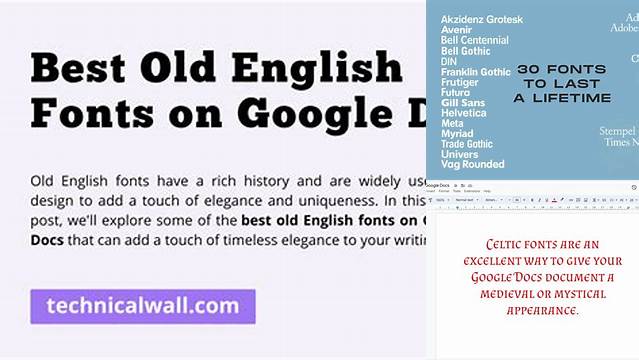
Ancient Fonts For Google Docs: A Timeless Look
Exploring the Allure of Ancient Looking Fonts on Google Docs
Hey everyone! Ever wanted to give your Google Docs a touch of history, a dash of old-world charm, or maybe just something that screams “timeless”? Well, you’ve come to the right place, guys. We're diving deep into the fascinating world of ancient looking fonts on Google Docs. It’s not just about picking any old font; it’s about finding that perfect typeface that transports your readers, whether you're crafting a historical essay, a creative story, or even just a fancy invitation. Google Docs, believe it or not, has a surprisingly robust library of fonts, and with a little digging, you can unearth some real gems that evoke the feel of ancient manuscripts, weathered scrolls, or even regal proclamations from centuries past. Think about the power of typography – it’s the first visual impression your words make. A modern sans-serif might be sleek and efficient, but an ancient font? That’s got story. It whispers tales of parchment, ink quills, and a different era. So, let’s get this exploration started and find some fonts that will make your documents look like they’ve journeyed through time itself. We’ll cover how to find them, some popular choices, and how to best utilize them to create that distinct, historical vibe you’re going for. It’s all about adding that extra layer of personality and impact to your written work, making it not just readable, but memorable. Get ready to elevate your Google Docs game with some seriously cool, ancient vibes!
Top Picks for Ancient Looking Fonts on Google Docs
Alright guys, now that we know how to find them, let's talk about some of the actual ancient looking fonts on Google Docs that really nail that historical vibe. While the Google Fonts library is vast, some typefaces just stand out when you're aiming for that old-world feel. One absolute classic is Playfair Display. Seriously, this font is gorgeous. It's a serif font with high contrast between thick and thin strokes, giving it a very elegant and somewhat dramatic, almost 18th-century feel. It’s perfect for titles, headings, or even short blocks of text where you want to make a statement. Another fantastic option is Merriweather. This one is designed for readability on screens, but it has a wonderfully sturdy and classic serif feel that evokes old books and libraries. It’s a bit more grounded than Playfair Display but still carries that historical weight. For something a little more rustic or perhaps medieval-inspired, check out Uncial Antiqua. This font is inspired by ancient Roman and early medieval scripts, featuring a distinct, almost hand-drawn look. It’s not ideal for long paragraphs due to its unique style, but for titles, headers, or specific design elements, it’s absolutely killer. Then there’s Lora. Lora is another serif font that balances contemporary and classic elements. It has a gentle flow and is highly readable, making it versatile for both body text and headings, and it definitely hints at older, more refined writing styles. Don’t forget about EB Garamond. If you want something that truly feels like it came from a renaissance manuscript, this is your font. It’s based on the classic Garamond typeface, known for its timeless beauty and readability. It’s sophisticated, elegant, and screams historical accuracy. When choosing, remember to consider the context. A formal historical document might suit EB Garamond, while a creative story set in a medieval fantasy world might call for Uncial Antiqua. Playfair Display is great for a more refined, literary feel. Experiment with these, play around with sizes and spacing, and see which ones resonate most with the specific historical period or mood you’re trying to capture. These are just a few to get you started on your quest for the perfect ancient looking fonts on Google Docs!
Evoking Medieval Manuscripts with Uncial Antiqua
Let’s really zero in on a font that screams “medieval manuscript,” guys, and that’s Uncial Antiqua. If you’re on the hunt for ancient looking fonts on Google Docs that can transport your readers straight back to the scriptoriums of the early Middle Ages, this is a top contender. Uncial Antiqua is inspired by the uncial script used in Latin manuscripts from about the 4th to the 9th centuries. What makes it so special? Well, for starters, it’s characterized by its all-uppercase letters and its rounded, almost flowing forms. Unlike the later Carolingian minuscule script which introduced lowercase letters, uncial script was predominantly written in capital letters, but these weren't the sharp, angular capitals we see in Roman inscriptions. Instead, they were more open, rounded, and had a distinctly softer feel. This unique characteristic gives Uncial Antiqua an immediate visual distinction that sets it apart from modern fonts. When you use it in Google Docs, it instantly evokes a sense of history, of hand-copied texts, and of a time when books were precious, rare artifacts. It’s important to note that because of its all-caps nature and distinctive letterforms, Uncial Antiqua is best used for specific purposes rather than as body text for long documents. Think titles, chapter headings, decorative quotes, or even as a stylistic element in a historical fiction piece or a fantasy novel. Imagine using it for the opening title of a document about medieval history, or perhaps for the name of a character in a fantasy story that has an ancient lineage. It really grabs attention and sets a specific tone. Its slightly irregular appearance also hints at the hand-drawn nature of ancient calligraphy, adding to its authenticity. When pairing it with other fonts, consider using a simpler, readable serif or sans-serif font for the main body text to ensure legibility. This contrast will make your Uncial Antiqua elements pop even more. So, if you want to imbue your Google Docs with that authentic, hand-crafted, early medieval vibe, Uncial Antiqua is a fantastic choice to explore. It’s a powerful tool in your arsenal for creating ancient looking fonts on Google Docs that truly stand out and tell a story.
The Elegance of Playfair Display for Historical Documents
When we talk about ancient looking fonts on Google Docs, particularly those that convey sophistication and historical gravitas, Playfair Display is a name that has to come up. This font is an absolute winner if you’re aiming for a look that’s both elegant and reminiscent of older, more formal styles of writing. Playfair Display is a transitional serif typeface, meaning it bridges the gap between the older Old Style serif fonts and the modern slab serifs. Its defining characteristic is the high contrast between its thick and thin strokes. This dramatic difference in line weight gives it a very refined, almost calligraphic appearance, which is strongly associated with the kind of typography seen in the late 18th and early 19th centuries – think fine stationery, literary publications, and formal announcements of that era. Using Playfair Display in your Google Docs can instantly elevate the perceived quality and style of your document. It’s particularly effective for titles, headings, and even short, impactful quotes. Imagine using it for the title of a historical research paper, a formal invitation to a themed event, or even the byline on a piece of creative writing that aims for a literary feel. The sharp serifs and the delicate yet bold strokes give it a certain flair that’s hard to match. It’s not just about looking old; it’s about looking distinguished. While it’s beautiful, like many high-contrast serif fonts, it can sometimes be less readable in very small sizes or for extended blocks of body text, especially on digital screens. Therefore, it’s often best utilized for headings and subheadings, paired with a more legible, simpler font for the main body content. This contrast ensures that your document remains easy to read while still benefiting from the sophisticated aesthetic of Playfair Display. If you’re going for that elegant, almost aristocratic historical vibe, this font is a must-try. It’s one of those ancient looking fonts on Google Docs that truly makes a statement about the content and the intended audience, adding a layer of polish and timeless appeal.
Merriweather: A Readable Classic for Ancient Vibes
For those of you looking for ancient looking fonts on Google Docs that manage to blend historical resonance with excellent on-screen readability, Merriweather is a fantastic choice, guys. This font was specifically designed to be a highly readable serif typeface for computer screens, but it does so with a distinct nod to classic typography. What makes Merriweather feel “ancient” or classic? It has a comfortable weight and a generous x-height (the height of lowercase letters like 'x'), which contributes to its clarity. The serifs are sturdy and well-defined, giving it a solid, traditional feel without being overly ornate or fussy. It evokes the impression of old books, perhaps academic texts or well-established journals, where clarity and a sense of enduring quality are paramount. Merriweather isn't trying to mimic a specific historical script like Uncial Antiqua, nor does it have the high drama of Playfair Display. Instead, it offers a more universally appealing “classic” look that feels appropriate for a wide range of historical or traditional contexts. It’s incredibly versatile. You can confidently use Merriweather for your main body text in Google Docs, even for longer documents, and know that your readers will have a comfortable reading experience. It works equally well for headings and subheadings, providing a consistent and reliable classic aesthetic throughout your document. If you’re writing a historical biography, a research paper on a traditional subject, or even a personal journal entry where you want a touch of old-world charm, Merriweather is a solid go-to. It strikes a perfect balance between having character and maintaining legibility, which is often the trickiest part when searching for ancient looking fonts on Google Docs. It feels familiar and trustworthy, like a well-worn leather-bound book. Don’t underestimate the power of a font that is both beautiful and functional. Merriweather delivers on both fronts, making it a staple for anyone looking to add a touch of timeless elegance to their digital documents without sacrificing readability. Give it a spin; you won’t be disappointed!
EB Garamond: The Renaissance Manuscript Feel
If your mission is to find ancient looking fonts on Google Docs that genuinely feel like they’ve been lifted from a beautifully illuminated Renaissance manuscript, then look no further than EB Garamond. This font is a digital revival of the iconic Garamond typeface, a family of fonts that has been a standard for serious typography for centuries, dating back to the 16th century. Garamond itself was designed by Claude Garamont and was renowned for its elegance, its balanced proportions, and its superb readability. EB Garamond, specifically, is an open-source project that brings this classic beauty into the modern digital world, including Google Docs. What gives EB Garamond that authentic Renaissance vibe? It’s all in the details. You’ll notice its refined serifs, the subtle contrast between thick and thin strokes (though less dramatic than Playfair Display), and the graceful curves of the letterforms. It has a certain lightness and airiness to it that feels incredibly sophisticated and intellectual. This is the kind of font you’d expect to see in a beautifully printed book of poetry, a scholarly article on classical history, or perhaps a historical novel that demands authenticity in its presentation. Using EB Garamond in your Google Docs lends an immediate air of classicism, authority, and timelessness. It’s particularly effective for body text because it’s highly readable even in smaller sizes, thanks to its excellent design. However, it also shines as a heading font, offering a touch of class that commands attention. If you’re writing about art history, literature, philosophy, or any subject that benefits from a touch of old-world erudition, EB Garamond is an exceptional choice. It doesn’t just look old; it looks classically old, in the best possible way. It’s a testament to enduring design principles that have stood the test of time. When you want your document to feel weighty with knowledge and steeped in historical tradition, opting for EB Garamond is a surefire way to achieve that effect. It’s truly one of the most sophisticated ancient looking fonts on Google Docs you can find to imbue your work with a sense of refined history and scholarly depth.
Lora: Versatile Serif for a Classic Touch
Let’s talk about Lora, guys, another stellar option when you’re digging for ancient looking fonts on Google Docs that offer both beauty and versatility. Lora is a well-balanced contemporary serif typeface that draws inspiration from the lettering in Assyrian stone carvings and Bengali script, but somehow manages to feel universally classic and subtly historical. What makes Lora a great choice for that ancient aesthetic? It possesses a moderate contrast between thick and thin strokes, giving it a refined yet grounded appearance. Its serifs are smooth and somewhat rounded, contributing to its comfortable readability across various sizes and contexts. Unlike fonts that might lean too heavily into a specific historical period, Lora offers a more general “classic” feel that works well for a broad range of applications. Think of it as a reliable workhorse if you want your document to have a touch of timeless elegance without appearing overly stylized or niche. You can use Lora confidently for the main body text of your Google Docs; it’s designed for legibility and has a pleasing flow that makes reading extended passages a joy. It also functions beautifully as a heading or subheading font, providing a consistent and polished look. If you’re writing a personal essay, a blog post about history, a creative story with historical elements, or even designing a simple, elegant invitation, Lora is a fantastic option. It doesn’t scream “ancient” in the way that Uncial Antiqua or a very ornate display font might, but it whispers “classic” and “established,” which often fits the bill perfectly for achieving that subtle historical depth. It bridges the gap between modern clarity and traditional charm, making it incredibly adaptable. It’s one of those ancient looking fonts on Google Docs that provides that sought-after antique feel without compromising on usability. It’s a testament to how good design can evoke a sense of history while remaining perfectly suited for contemporary digital use. Definitely give Lora a try in your next project!
Using Ancient Fonts Effectively in Google Docs
Alright, so you’ve picked out some killer ancient looking fonts on Google Docs, but how do you actually use them so they work? It’s not just about slapping a fancy font on your page; it’s about strategic application to enhance your message, guys. The key is balance and purpose. Think about the kind of document you’re creating. Is it a formal historical analysis? A creative story set in the past? A themed party invitation? The font choice should align with the document’s tone and content. For headings and titles, fonts like Playfair Display, EB Garamond, or even Uncial Antiqua (for very specific, impactful uses) can be incredibly effective. They grab attention and set the historical mood right away. Remember, high-contrast serifs or distinctly stylized fonts work best when they’re not overwhelming the reader. Use them for emphasis. For body text, readability is paramount. While fonts like EB Garamond and Merriweather are excellent choices for a classic feel and good readability, you might find that extremely stylized or very condensed ancient-style fonts are difficult to read in long paragraphs. If you do want to use a more decorative ancient font for body text, consider increasing the font size slightly or using a slightly lighter weight if available. A great technique is font pairing. Combine a more decorative or distinct ancient font for your headings with a clean, highly readable serif or sans-serif font for your body text. For example, use Playfair Display for your title and Merriweather for the main content. This creates a visual hierarchy and ensures your document is both stylish and accessible. Don't forget about the other elements of typography: line spacing (leading), character spacing (kerning), and paragraph spacing. Slightly increased line spacing can often improve the readability of serif fonts, giving them more room to breathe. Experiment with these settings! Remember, the goal of using ancient looking fonts on Google Docs is to add character, convey a specific atmosphere, or evoke a historical period. Use them thoughtfully, consider your audience, and ensure that legibility is never sacrificed for style. With a little practice, you’ll be creating documents that look both historically authentic and professionally presented. You’ve got this, team!
Recreating Roman and Greek Aesthetics
When we talk about ancient looking fonts on Google Docs, the ultimate ancient aesthetic often points back to the Romans and Greeks, guys. The very foundations of Western typography are rooted in the inscriptions on Roman stone monuments and the scripts used in ancient Greece. So, how can we capture that vibe in Google Docs? We're generally looking for fonts that are clean, often all-caps, and possess a certain stately, monumental quality. Think about the classic Roman square capitals – these are the letters you see carved into ancient buildings, known for their geometric precision and the iconic serifs that were often a result of the chiseling process. While Google Docs doesn't have many fonts that are exact replicas of Roman inscriptions (often called